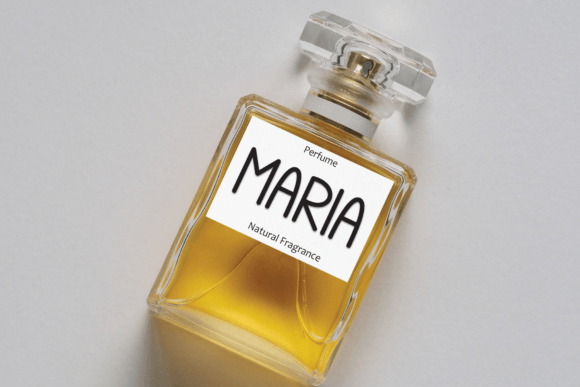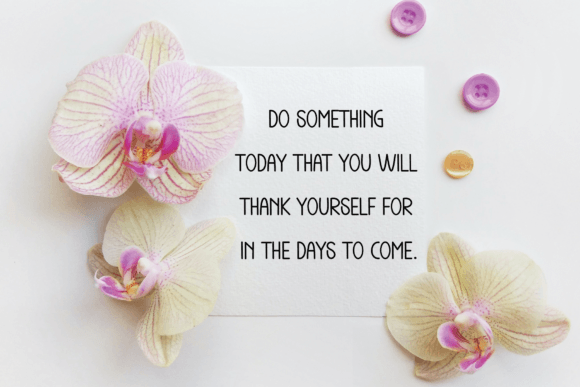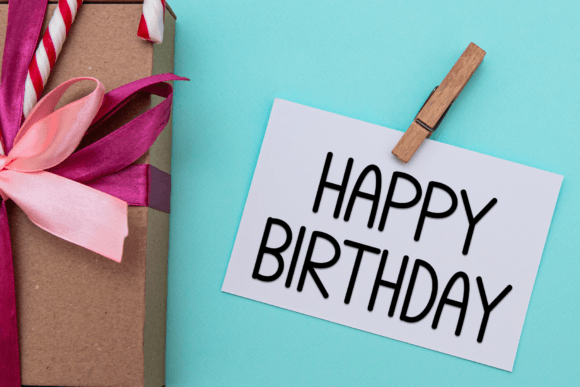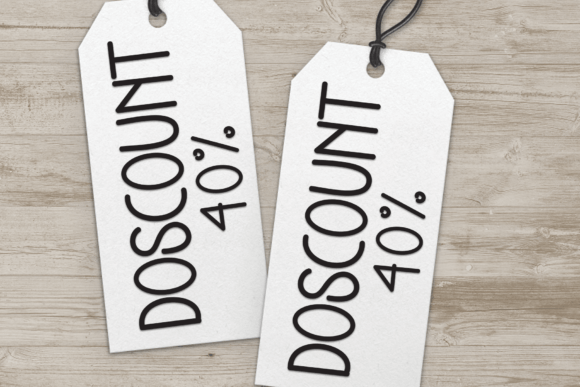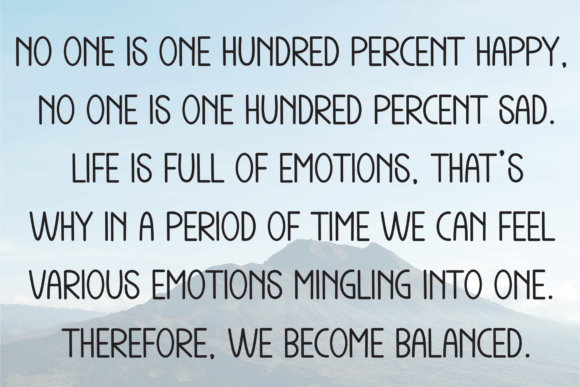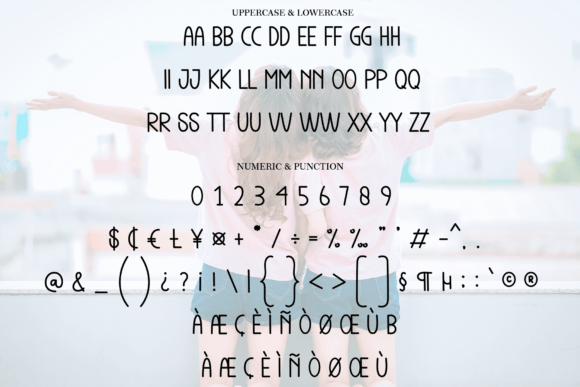
Introducing Funny Day Font: The Sweet and Friendly Handwritten Font for Your Design Needs
Are you tired of using the same old fonts for your designs? Do you want to add a personal touch to your wedding invitations, cards, or other creative projects? Look no further than Funny Day Font, a sweet and friendly handwritten font that’s perfect for bringing a lovely touch to your designs.
What is Funny Day Font?
Funny Day Font is a fresh and casual handwritten font that’s designed to add a touch of warmth and personality to your designs. With its sweet and friendly vibe, this font is ideal for a variety of creative projects, from wedding invitations and cards to social media graphics and more.
Characteristics of Funny Day Font
So, what makes Funny Day Font so special? Here are just a few of its key characteristics:
• Sweet and friendly: Funny Day Font has a warm and approachable feel that’s perfect for creating designs that are both personal and inviting.
• Handwritten: This font has a beautifully handwritten feel that’s reminiscent of a letter written from the heart.
• Fresh and casual: Funny Day Font is perfect for designs that need a fresh and casual touch, from social media graphics to party invitations.
• Versatile: This font can be used for a wide range of creative projects, from print designs to digital graphics.
Uses for Funny Day Font
So, what can you use Funny Day Font for? The possibilities are endless! Here are just a few ideas to get you started:
• Wedding invitations: Add a personal touch to your wedding invitations with Funny Day Font, perfect for creating beautiful and unique wedding stationery.
• Cards: Whether you’re creating birthday cards, thank-you cards, or holiday cards, Funny Day Font is the perfect choice for adding a personal touch.
• Social media graphics: Use Funny Day Font to create eye-catching social media graphics that are sure to stand out.
• Party invitations: Create fun and festive party invitations with Funny Day Font, perfect for birthday parties, baby showers, and more.
Why Choose Funny Day Font?
So, why should you choose Funny Day Font for your design needs? Here are just a few reasons:
• Unique and creative: Funny Day Font is a one-of-a-kind font that’s sure to add a unique touch to your designs.
• Easy to read: This font is clear and easy to read, making it perfect for designs that need to be both beautiful and functional.
• Customizable: With Funny Day Font, you can customize your designs to fit your personal style and branding.
• High-quality: This font is designed to be high-quality and professional, making it perfect for both personal and commercial use.
In conclusion, Funny Day Font is a sweet and friendly handwritten font that’s perfect for adding a lovely touch to your designs. With its fresh and casual vibe, this font is ideal for a wide range of creative projects, from wedding invitations and cards to social media graphics and more. Whether you’re a designer, crafter, or DIY enthusiast, Funny Day Font is the perfect choice for bringing a personal touch to your designs.